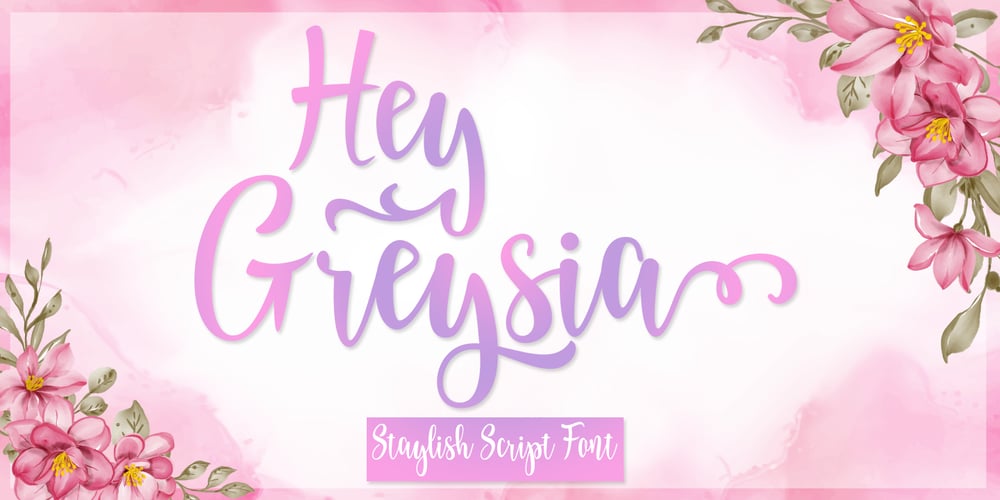
Hey Greysia Font Family was designed by Reza Haitami and published by Black Studio. Hey Greysia contains 1 styles and family package options. Hey Greysia is a modern typography with a great flow. Hey Greysia features alternate characters, including initials, final terminal sweep, ligatures, and International support for most of the included Western Languages.This one will make your designs instantly professional and stunning! Be the perfect professional in a minute and create modern designs like ads, sales, logos, branding, posters, social media text overlays today!To enable the OpenType Stylistic alternative, you need a program that supports OpenType features such as Adobe Illustrator CS, Adobe Indesign & CorelDraw X6-X7, Microsoft Word 2010 or later. and there are additional ways to access alternatives/swashes, using the Character Map (Windows), Nexus Font (Windows), Font Book (Mac) or a software program such as PopChar (for Windows and Mac).I really hope you enjoy it!I can’t wait to see what you do with Hey Greysia! Feel free to use the #Black Studio tag and the #Hey Greysia font to show what you’ve done :)Thank you for your purchase!